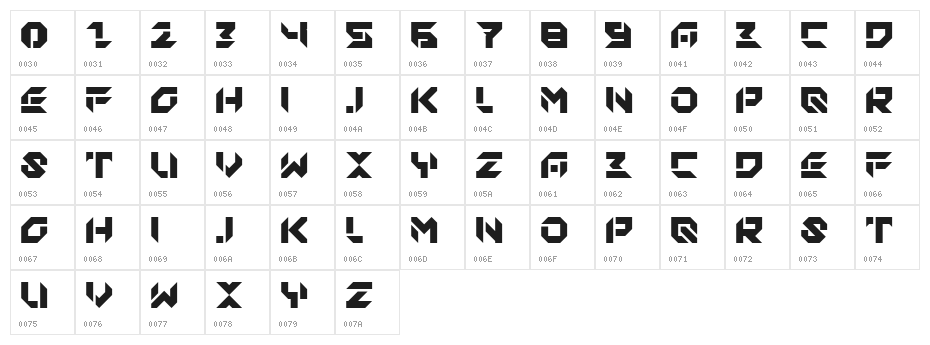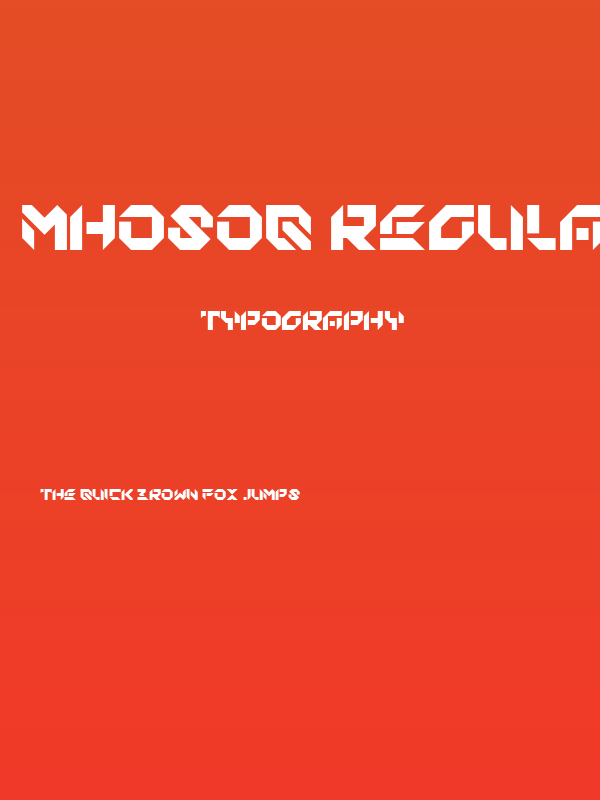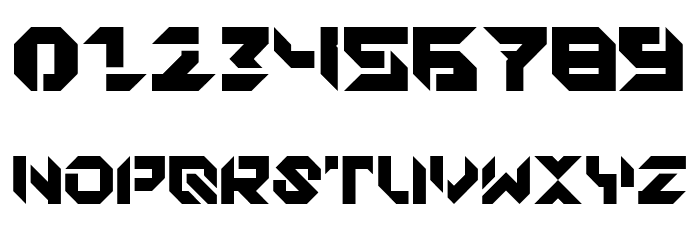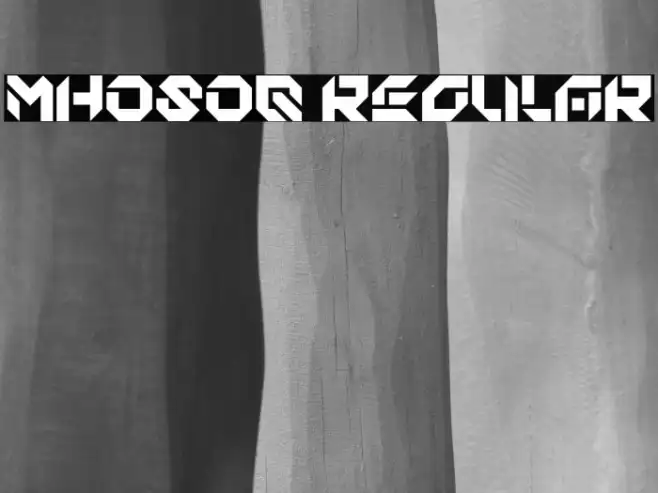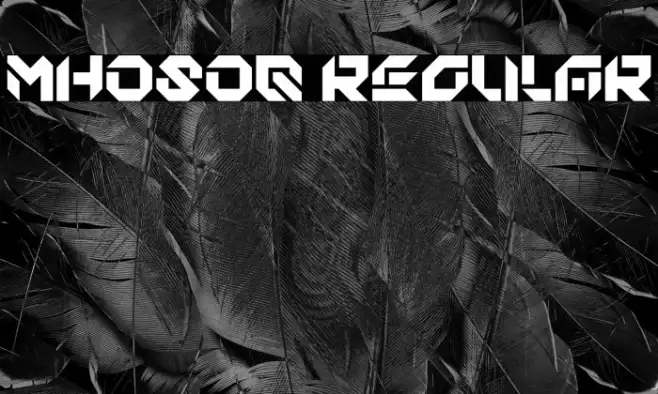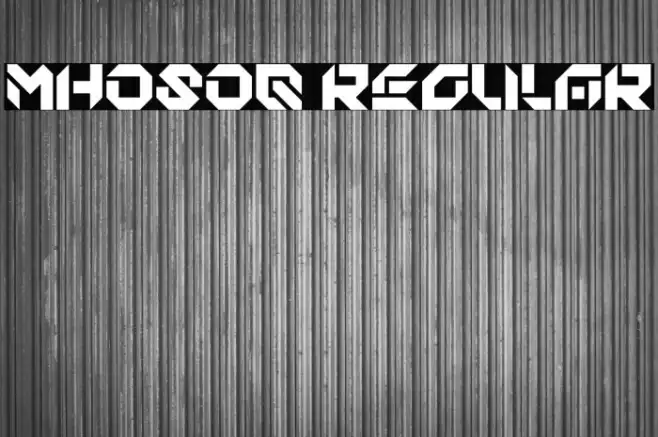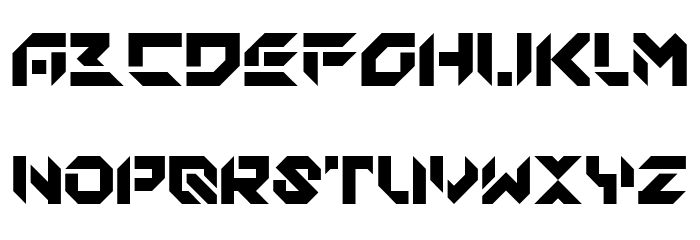
MHOSOQ Regular Font
MHOSOQ Regular Description
This font features a bold and geometric design with sharp angles and a futuristic aesthetic. The characters are constructed with a series of straight lines and angular cuts, creating a dynamic and edgy appearance. The uppercase letters are particularly striking, with a uniform height and width that enhances their boldness. The numbers and special characters maintain the same angular style, ensuring consistency across all glyphs. This font's unique style makes it stand out, perfect for projects that require a modern and impactful look.
| Proposed Projects | Ideal for sci-fi themed designs, video game titles, tech branding, and modern posters. |